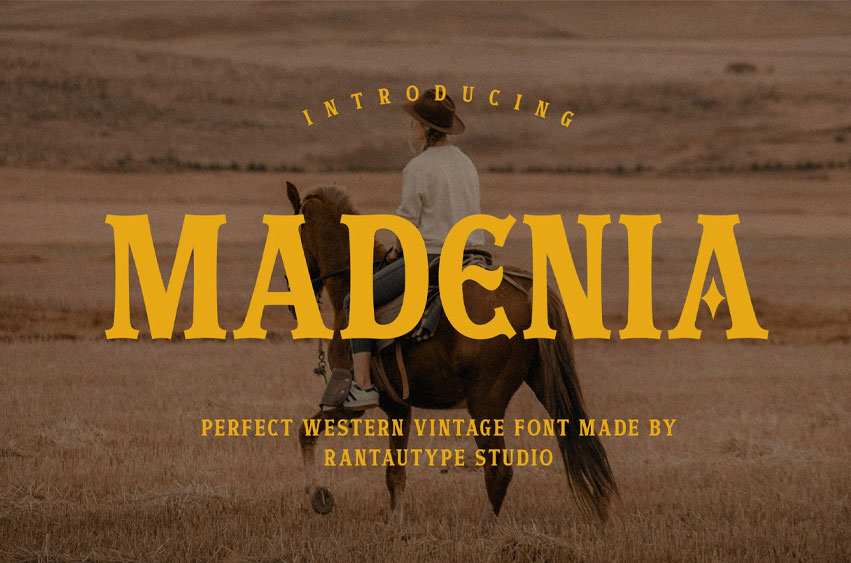
Madenia Font
Madenia Font is a perfect western font with bold character and vintage charm of the American frontier era. Inspired by 19th-century typography seen on saloon signs, wanted posters, and old railway stations, this font style instantly transports viewers to a time of cowboys, outlaws, and dusty desert towns.
Madenia is a perfect choice for any creative endeavor, chic, lifestyle design, such as logotype, advertisements, watermark on photography, stationery, branding project, display and magazine, invitation, corporate brand, product design, label, business project, and many other projects with a western touch.